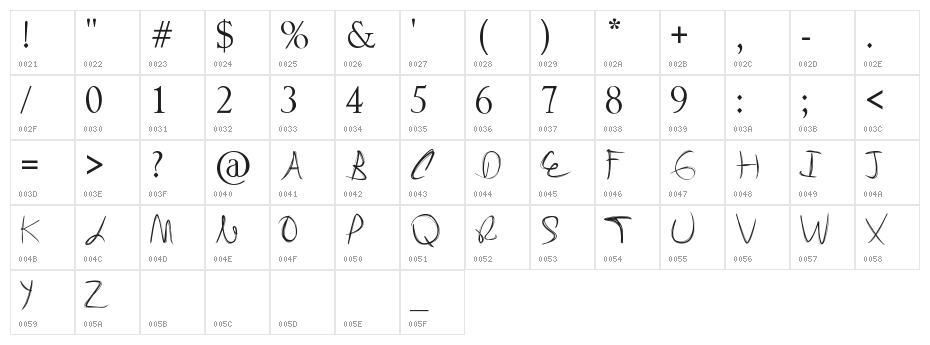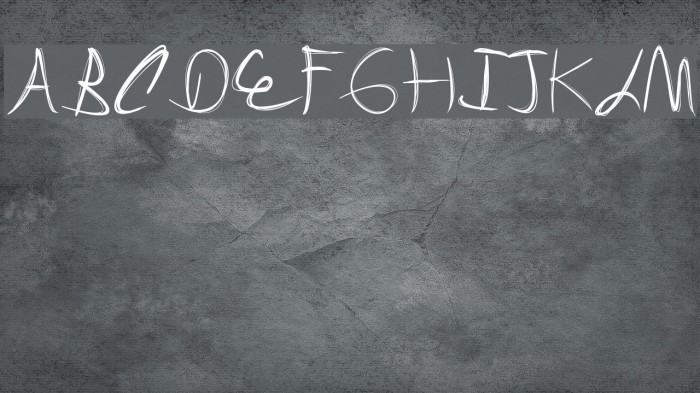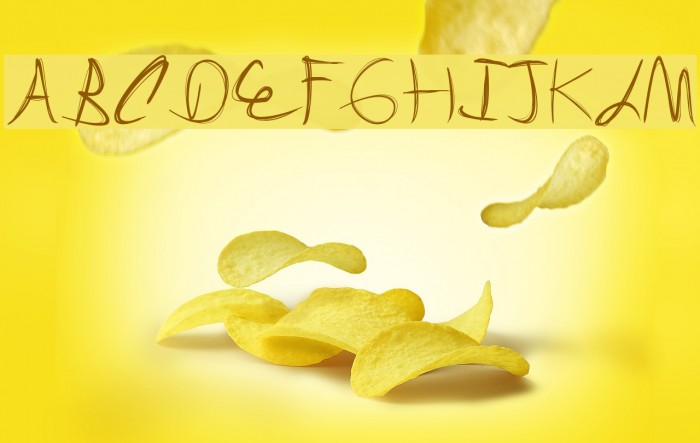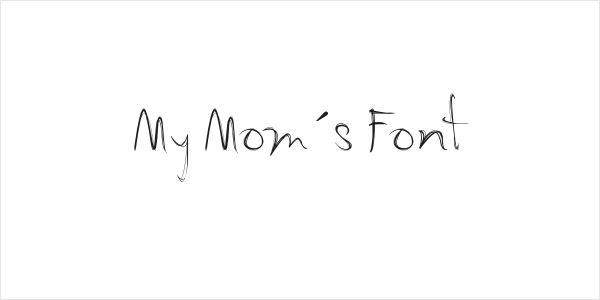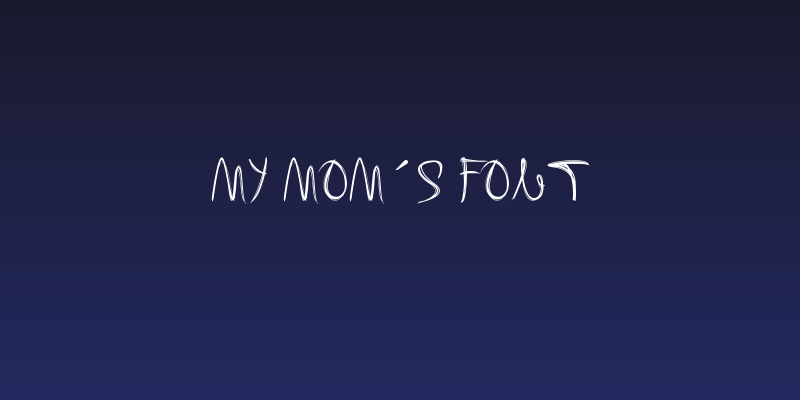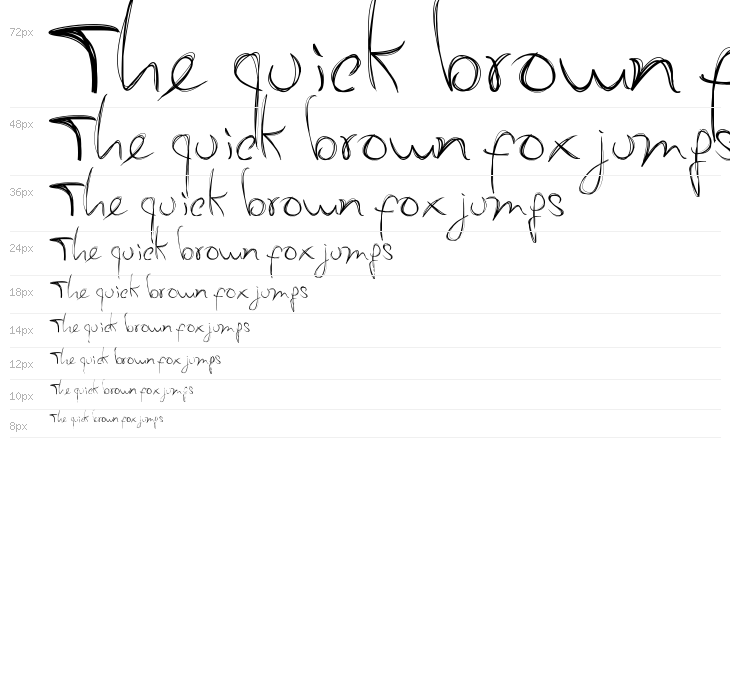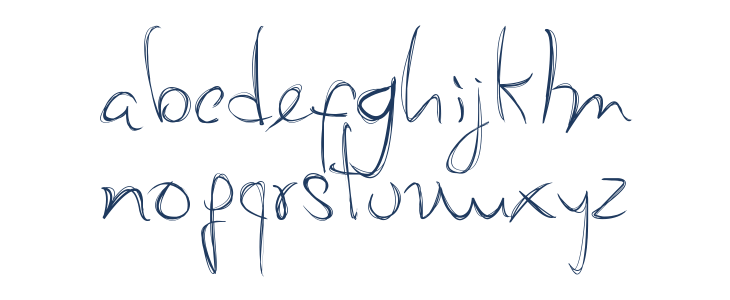
My Mom´s Font Font
My Mom´s Font Description
This font features a whimsical and artistic style, characterized by its flowing, handwritten script that exudes a sense of creativity and personal touch. The uppercase letters are bold and expressive, with unique curves and angles that give each character a distinct personality. The lowercase letters maintain this playful aesthetic, with a slightly more relaxed and casual appearance. The numerals are clear and bold, providing a nice contrast to the more fluid letterforms. Special characters are included, maintaining the same artistic flair. This font is perfect for projects that require a personal, artistic touch, such as invitations, greeting cards, or creative branding.